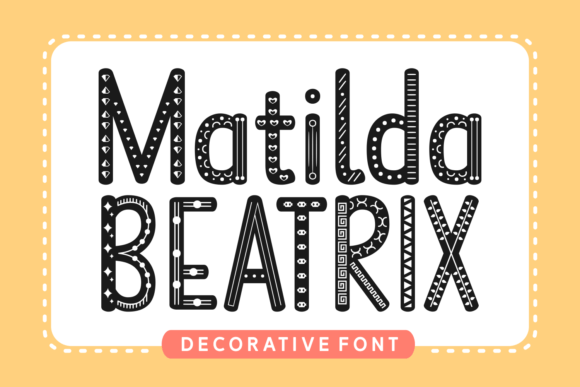
Matilda Beatrix Font
Introducing Matilda Beatrix Font: A Journey into a Whimsical World of Creative Expression
Step into a realm where imagination takes center stage, and boundless creativity knows no limits. We present to you Matilda Beatrix Font, a decorative masterpiece crafted with meticulous care by Creative Fabrica Fonts. This extraordinary font is more than just a collection of characters; it's an invitation to embark on an artistic adventure where your ideas come to life in captivating forms.
With Matilda Beatrix, prepare to be mesmerized by a symphony of shapes and decorations, each meticulously designed to evoke a sense of wonder and delight. From whimsical swirls to intricate flourishes, this font possesses an enchanting allure that will transform your designs into captivating works of art. Let your imagination run wild as you explore the endless possibilities that await you with Matilda Beatrix.
Unlock the secrets of a font that dances with versatility, effortlessly adapting to a myriad of creative endeavors. Whether you're a seasoned designer seeking to elevate your projects or a budding artist渴望添加 unique touch to your creations, Matilda Beatrix has the power to ignite your imagination and propel your artistic vision to new heights.
Dive into the world of Matilda Beatrix and discover a boundless playground where creativity thrives. Let your designs radiate with playful charm and sophistication as you weave a tapestry of visual wonders. From enchanting invitations and eye-catching social media posts to captivating logos and captivating website designs, Matilda Beatrix is your trusted companion, transforming ordinary words into extraordinary masterpieces.
Embark on a journey of self-expression, where your imagination holds no bounds, and your designs blossom with originality. Experience the magic of Matilda Beatrix Font today and let your creativity soar to new horizons of inspiration.